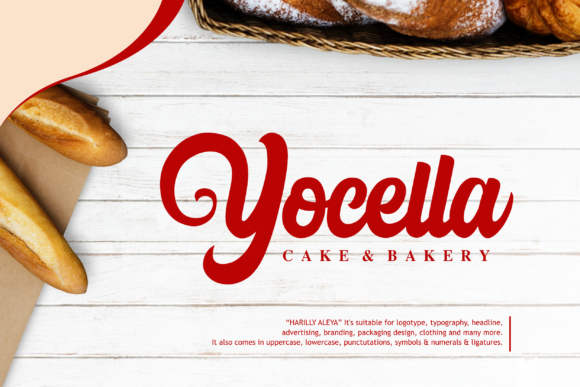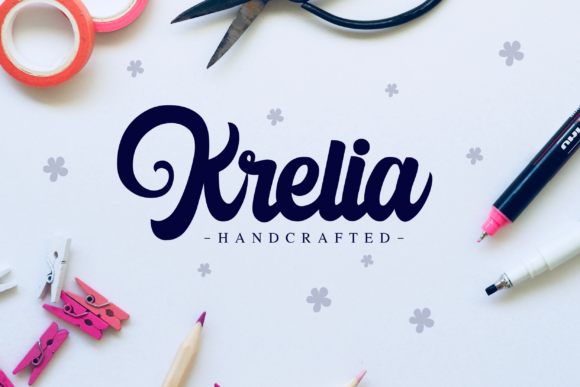
Harilly Aleya Font
db-ku.com - Script & Handwritten -- Harilly Aleya is a bold font with a romantic twist. It will add a touch of elegance to any craft project!